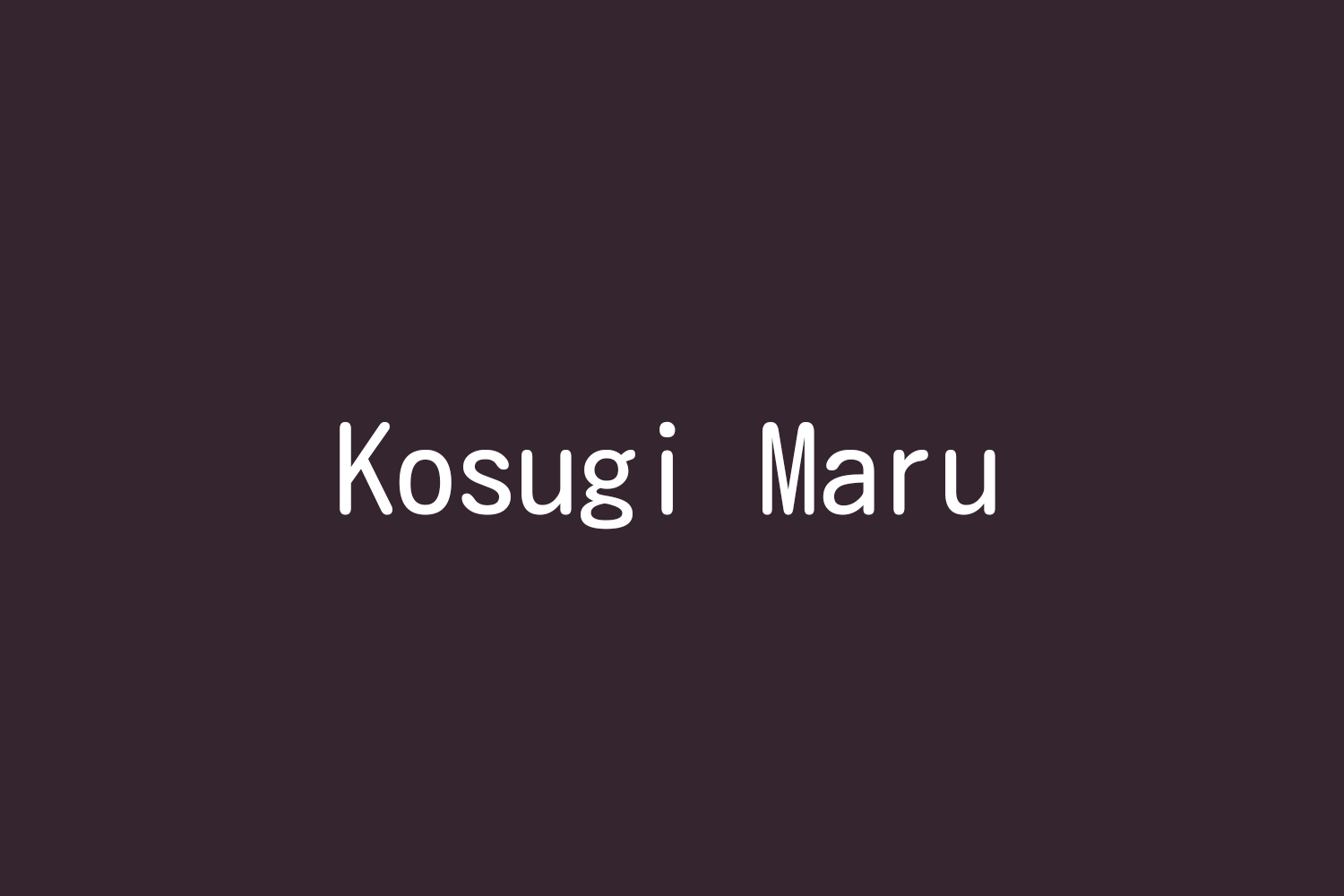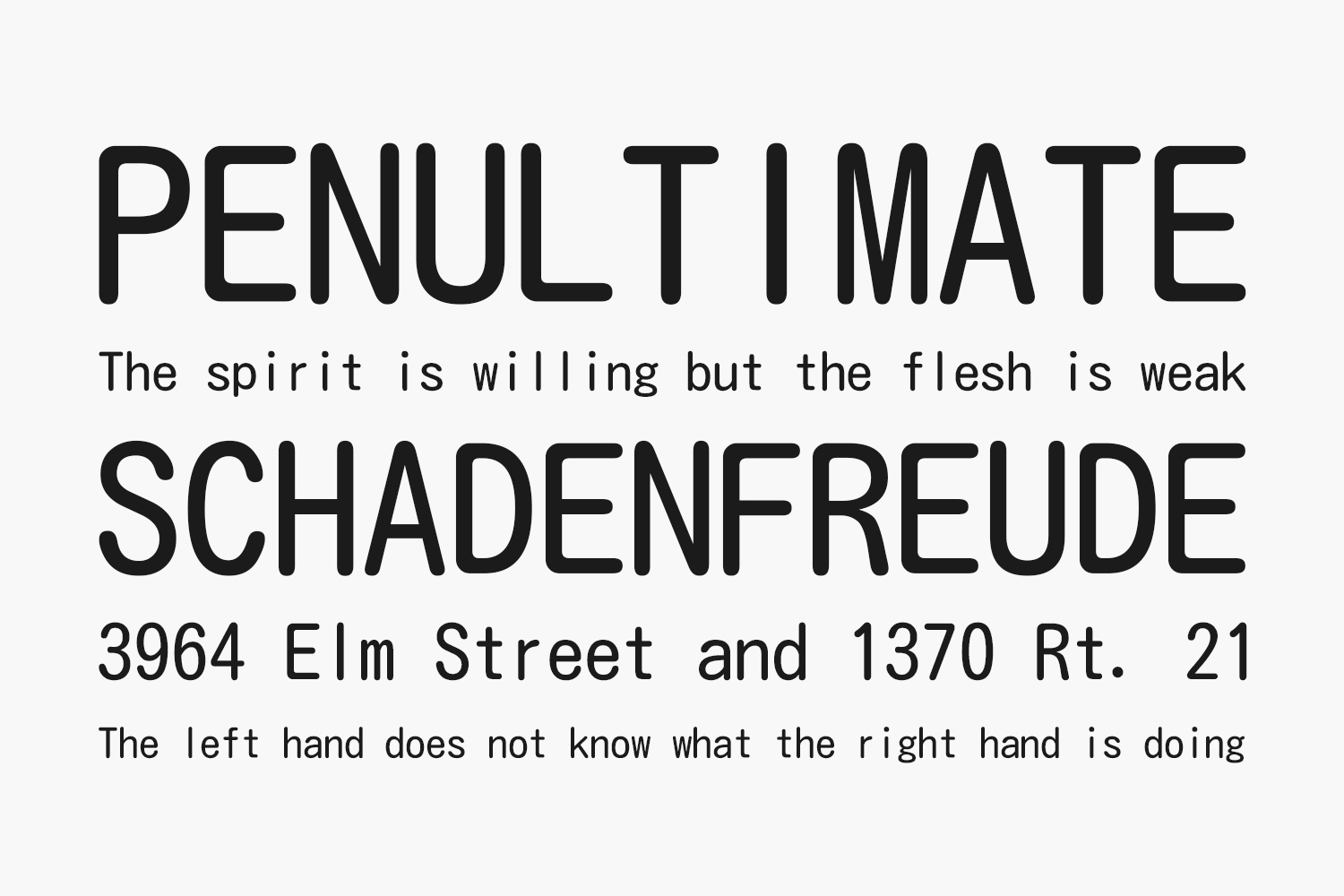
Kosugi Maru Free Font is a Gothic Rounded design, with low stroke contrast and monospaced metrics, and rounded terminals. Initially developed by MOTOYA and released for the Android platform under the Apache license, the typeface is based on a design from the 1950s. It aims for beauty and readability and evokes the Japanese cedar trees that have straight and thick trunks and branches. Originally available as “MotoyaLMaru W3 mono”, it is now available under the name Kosugi Maru. A regular gothic version is available as Kosugi.
Designed by MOTOYA